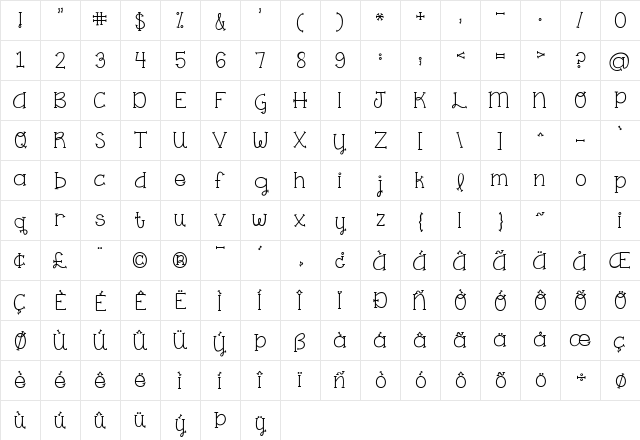
KG One Thing Regular
Foundry: Kimberly Geswein
Designer: Kimberly Geswein
Design Context for KG One Thing
KG One Thing is a composed and adaptable typeface that performs quietly and consistently across a wide range of design contexts. Its slender proportions lend an understated elegance to any composition.